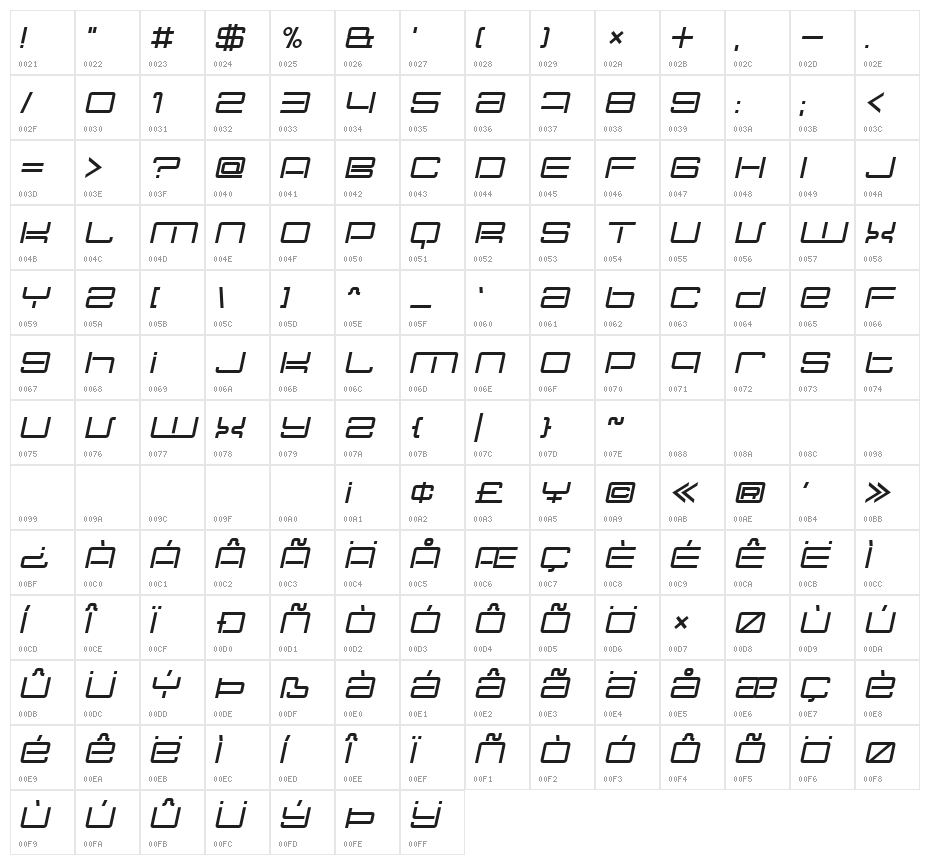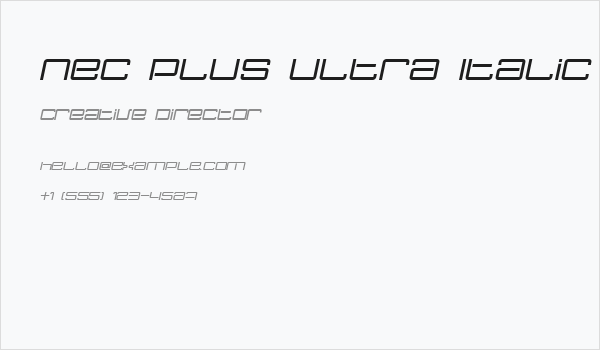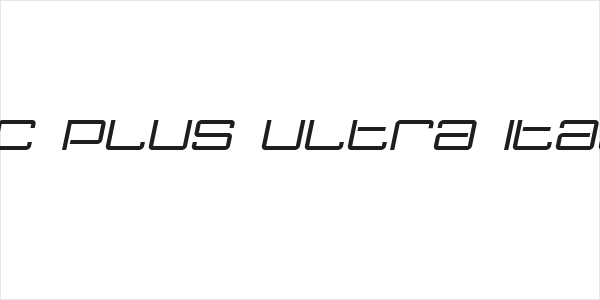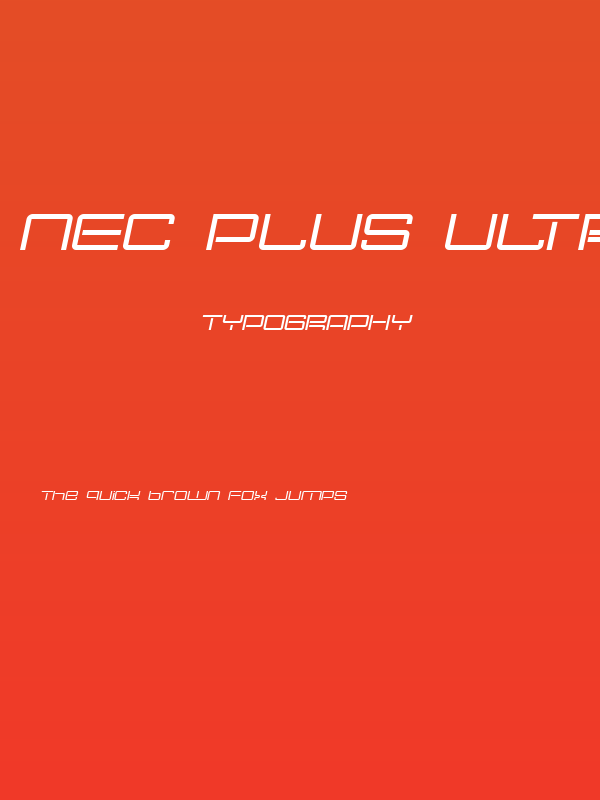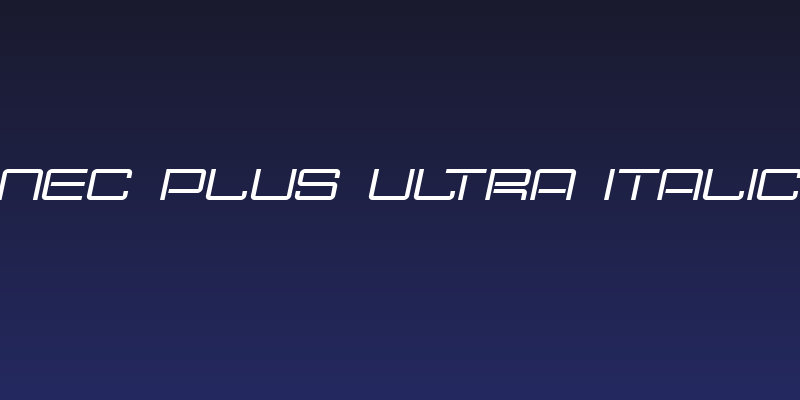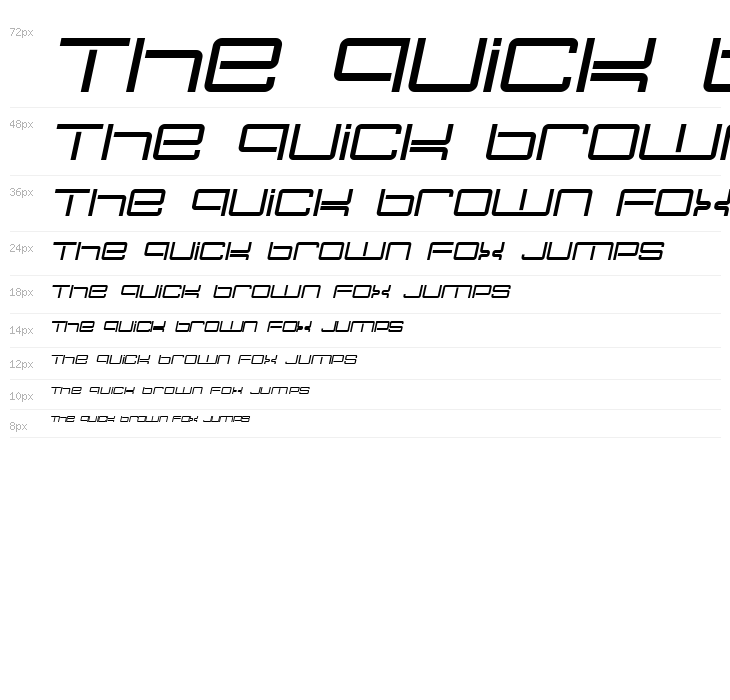
Nec plus ultra Italic Font
Nec plus ultra Italic Description
This font features a futuristic and sleek design with a distinctly italicized style. The characters are composed of clean, geometric lines that create a sense of movement and modernity. The uppercase and lowercase letters maintain a consistent height, contributing to a uniform appearance. Numbers and special characters follow the same design principles, ensuring cohesion across all elements. The font's open structure and angular forms make it highly legible, even at smaller sizes. Its unique style is ideal for projects that require a contemporary and dynamic aesthetic.
| Use Case | Headlines, Logos, Digital Interfaces |
| Proposed Projects | Ideal for tech branding, sci-fi themed designs, modern advertising, and digital interfaces. |